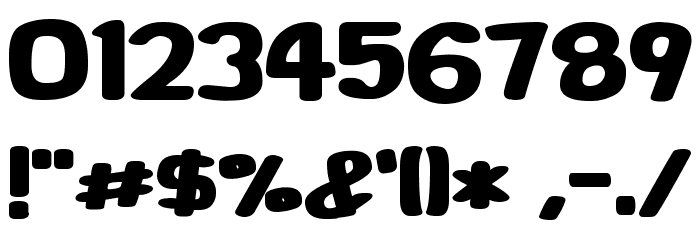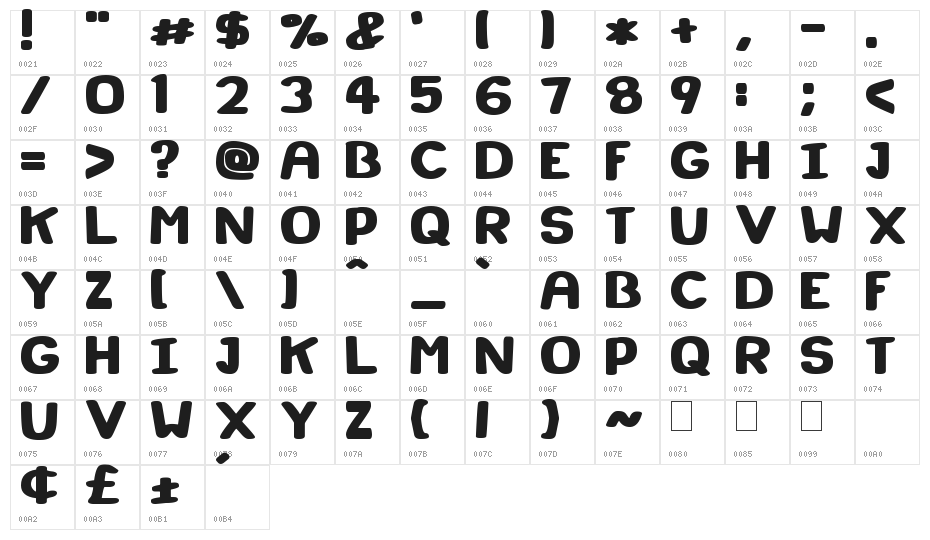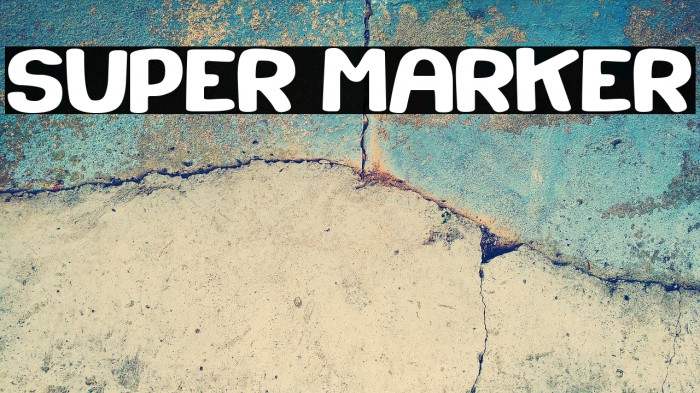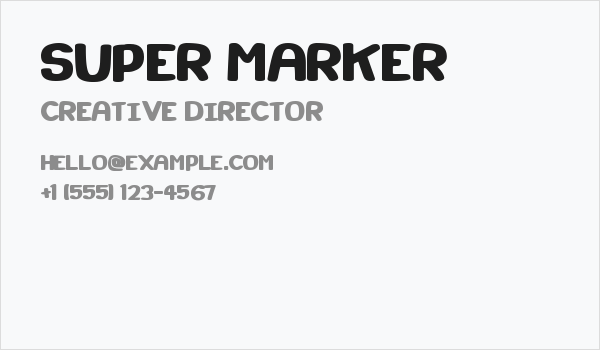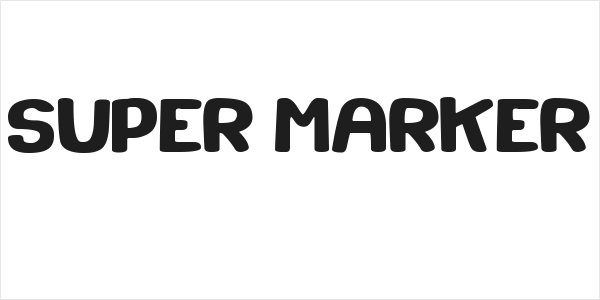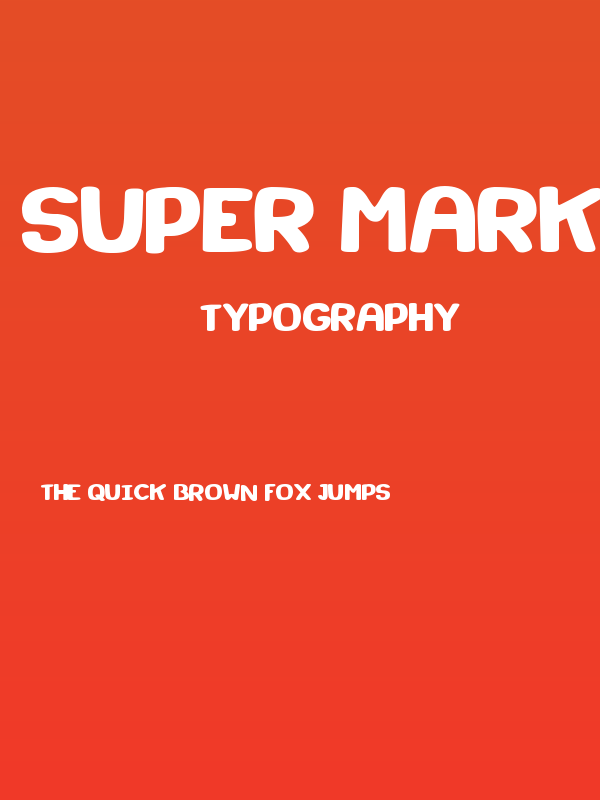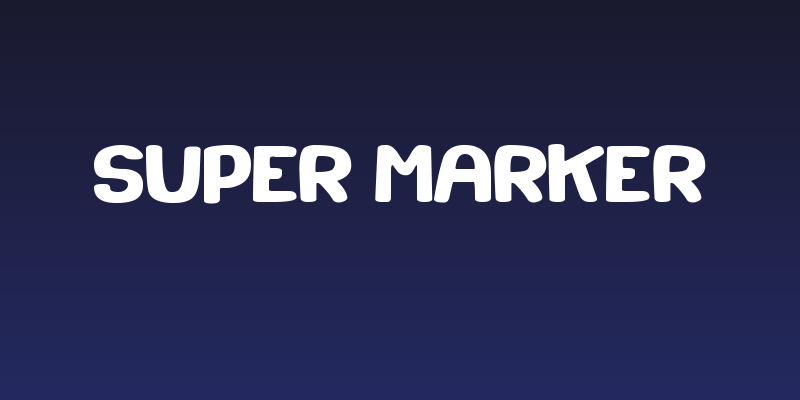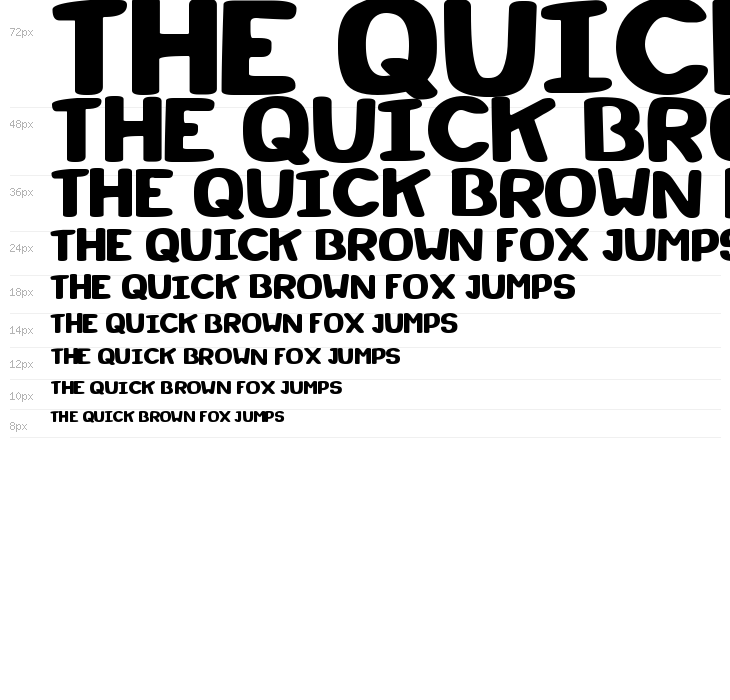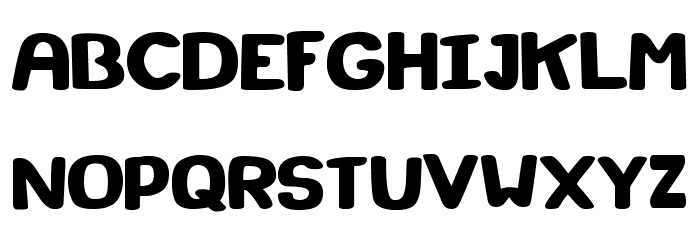
Super Marker Font
Super Marker Description
This playful and bold font features rounded edges and a hand-drawn aesthetic, reminiscent of marker writing. The characters are thick and uniform, providing a strong visual impact. Its informal style is both approachable and lively, making it suitable for creative and casual applications. The font maintains consistent stroke widths, contributing to its cohesive appearance. The spacing between characters is balanced, ensuring readability while retaining its distinctive style. The overall look is both modern and fun, ideal for projects that require a touch of personality and flair.
| Overall Style | Playful, Modern |
| Proposed Projects | Ideal for children's books, posters, greeting cards, and playful branding. |